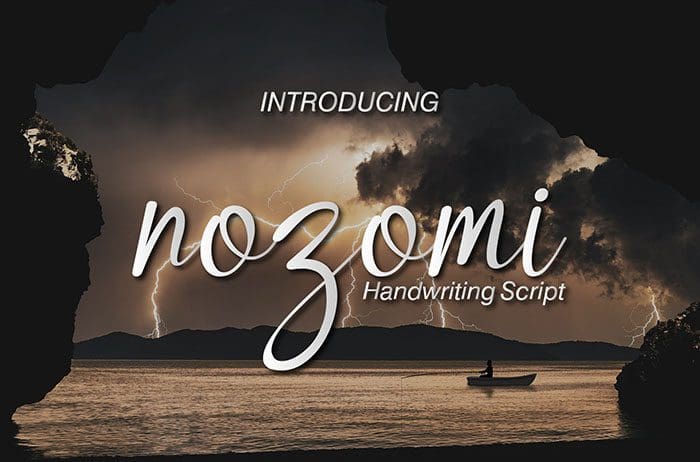
Free Nozomi Script Font
Nozomi Script Font
Free Nozomi script font is a cute and casual handwritten font with an incredibly friendly feel. Whether you’re looking for fonts for Instagram or calligraphy scripts for DIY projects, this font will turn any creative idea into a true piece of art! This font is available only for personal use. Created this font by Jprint Studio. You can also search more free Fonts. Thanks.